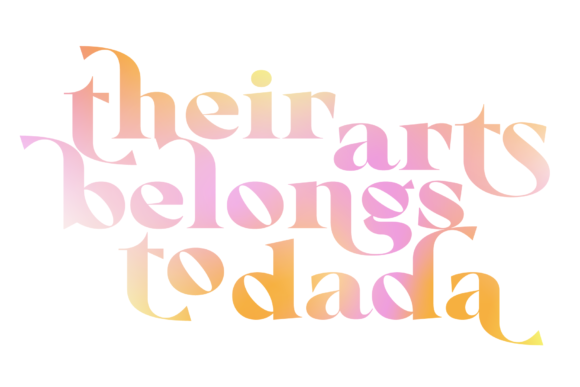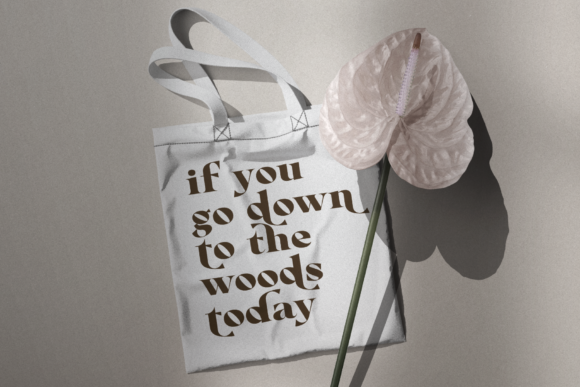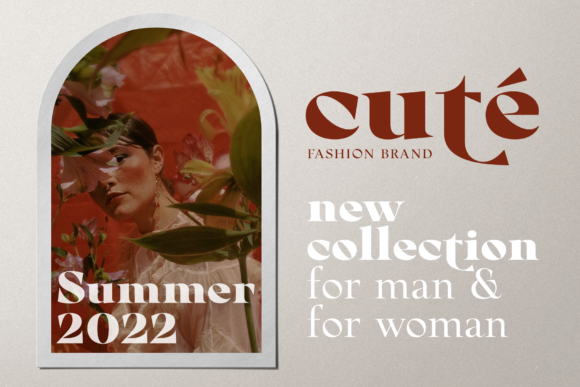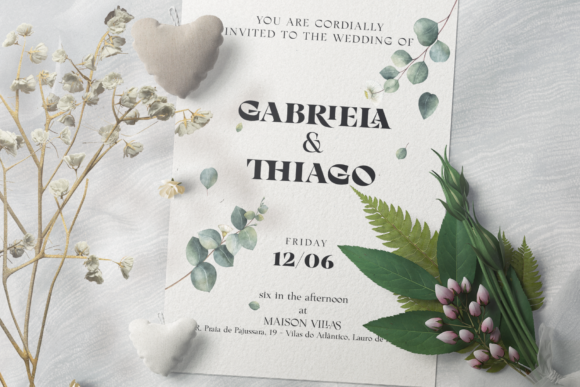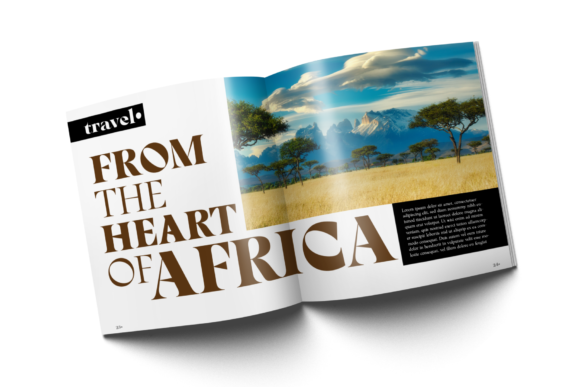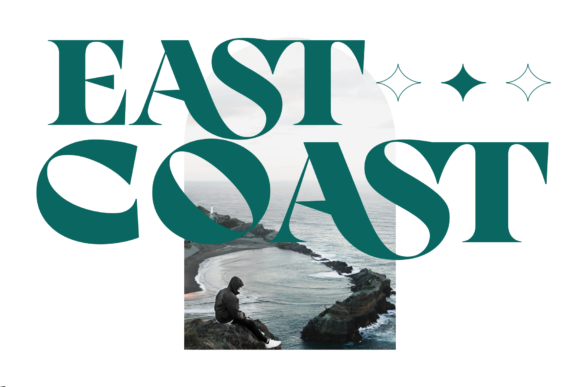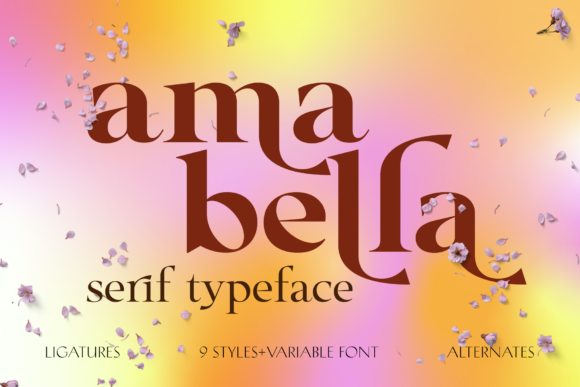
The Elegance of Amabella: A Timeless Serif Font Family
I’ll never forget the struggle I faced while working on a branding project for a luxury client. The goal was to create an elegant and sophisticated visual identity that would appeal to high-end customers. However, finding the perfect font proved to be a daunting task. That was until I stumbled upon the Amabella family font. With its high contrast and timeless look, it instantly caught my attention and became the perfect fit for the project.
An Honest Review of Amabella
- ✨ Elegant serif design with high contrast, making it perfect for luxury brands and sophisticated designs
- 🌟 Timeless look that works well for both print and digital designs
- 📚 Versatile and suitable for a wide range of design projects, from logos to headings
While Amabella is an excellent font, there are a few things to keep in mind:
- ⚠️ As a high-contrast font, it may not be the best choice for body text or small font sizes
- 🤔 Some users may find the font a bit too ornate for certain design projects
A Practical Guide to Using Amabella
The Backstory of Amabella
Amabella was designed by a team of typographers who aimed to create a font that would evoke a sense of elegance and sophistication. Inspired by classic serif fonts, they crafted Amabella with high contrast and a timeless look. The result is a versatile font that works well for a wide range of design projects, from logos to headings.
Q: Is Amabella suitable for body text?
A: While Amabella is an elegant font, its high contrast design makes it more suitable for headings and titles. For body text, a font with a more traditional design might be more suitable.